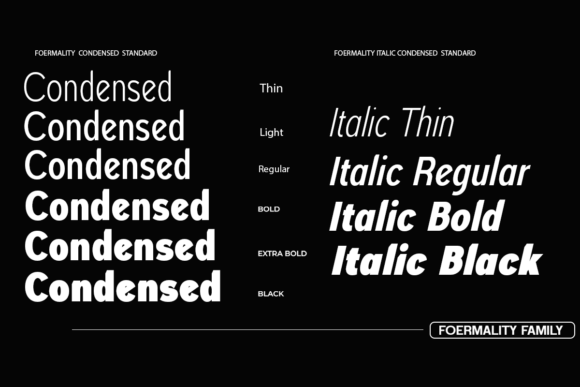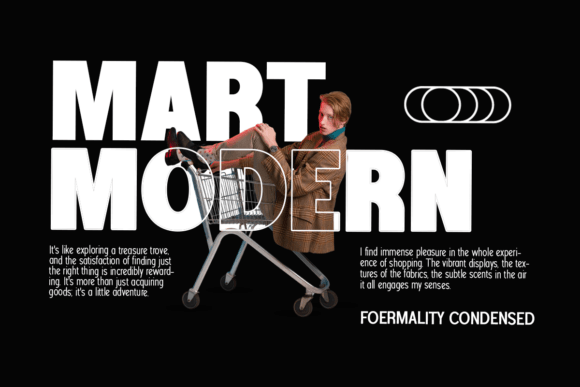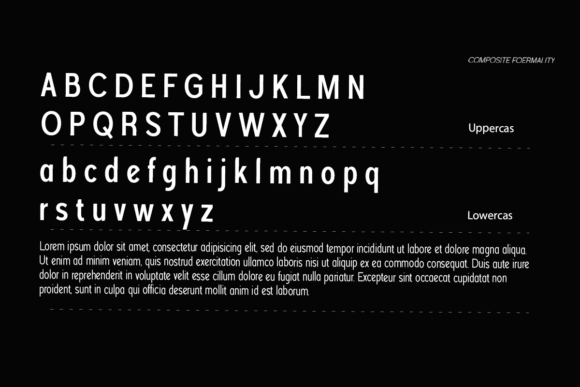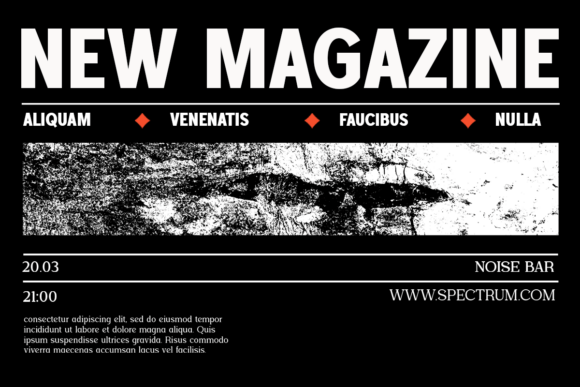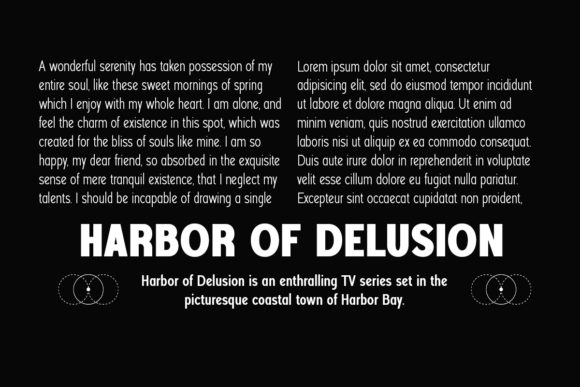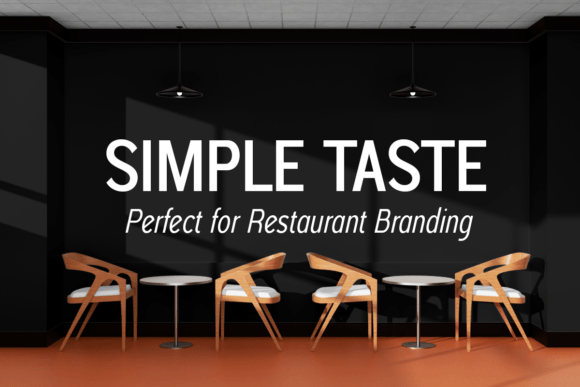
The Perfect Balance of Space and Sophistication
Remember the moment when you finally nailed the perfect design for your client’s new product launch? The clean lines, the precise typography, and the overall visual flow all came together to create a stunning visual identity. But have you ever found yourself struggling to convey the same level of elegance within the constraints of a limited space?
Enter Foermality Condensed Font, a refined sans serif typeface designed to deliver sophistication in a compact form. With its narrow proportions, Foermality Condensed Font is the perfect solution for designers who need to make a strong visual impact without sacrificing style. Whether it’s for editorial headlines, branding, packaging, posters, or digital interfaces, Foermality Condensed Font is the ultimate tool for elevating your designs and saving space.
Foermality Condensed Font Key Features
- Font Family: Foermality Condensed Font is a condensed sans-serif typeface designed for modern and minimalist designs.
- Unique Characteristics: Foermality Condensed Font features a distinctive condensed design with a high x-height, making it ideal for creating clean and modern typographic compositions.
Designer Review: Foermality Condensed Font
Overall, I think Foermality Condensed is a solid addition to any designer’s toolkit. Here are a few things I appreciate about it:
- ✨ Versatility: This font is perfect for those who want a condensed font that still packs a punch. It works beautifully for titles, headings, and even body text.
- ✨ High-quality glyph set: The glyphs are well-designed and have a high level of detail, making it suitable for a wide range of applications.
- ✨ Neutral tone: Foermality Condensed has a neutral tone that won’t distract from the content, making it a great choice for corporate materials, publications, and more.
- ⚠️ Limited language support: While the font does support multiple languages, it’s not as extensive as some other fonts on the market.
- ⚠️ May require manual kerning: Depending on the specific use case, you may need to manually adjust the kerning to get the best results.
Overall, I think Foermality Condensed is a great choice for designers who need a condensed font that’s both stylish and functional. While it may have some limitations, it’s definitely worth considering for your next project.
To get the most out of Foermality Condensed Font, use it for:
- Headings and titles in design projects.
- Creating a modern and minimalist aesthetic.
- Adding a touch of sophistication to your typography.